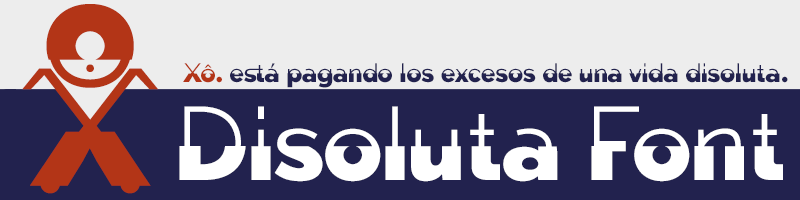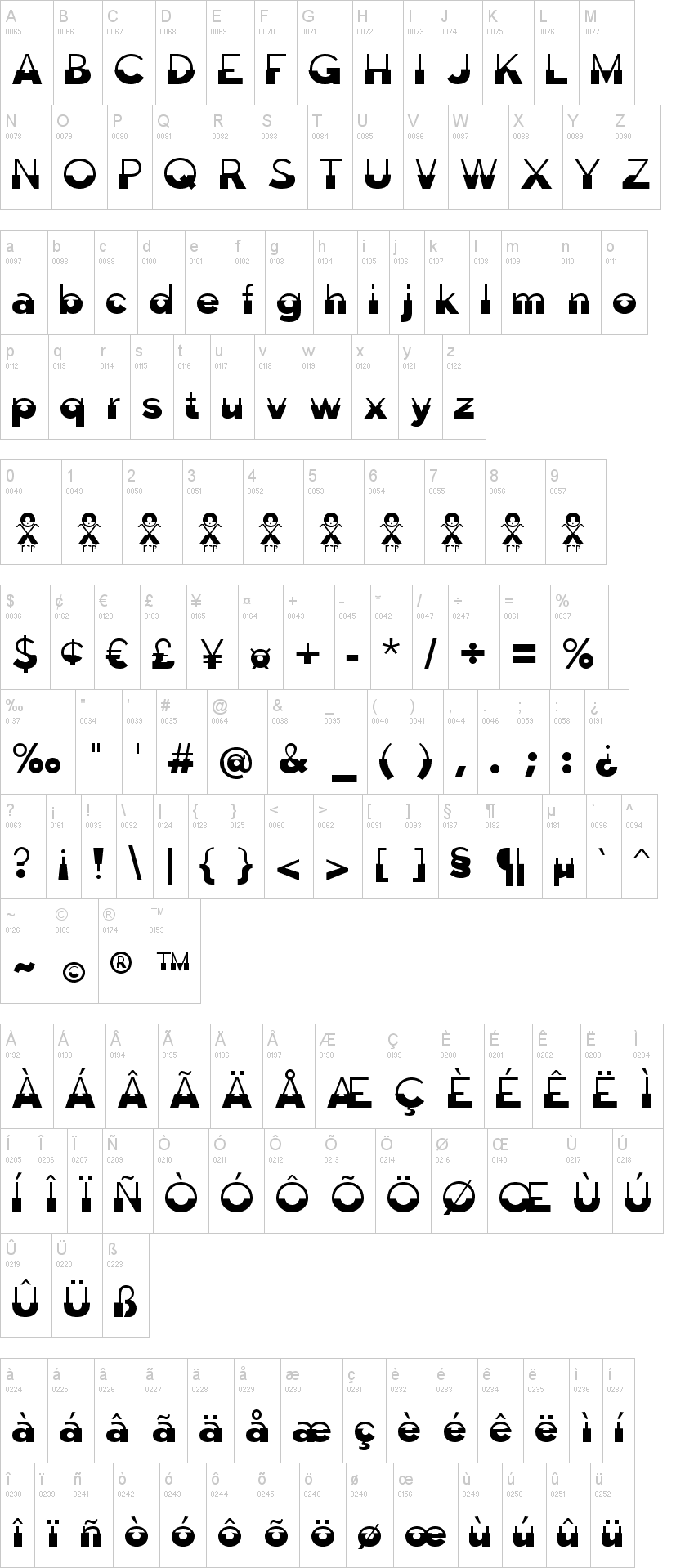
Note of the authorDissolute is a typographical experiment fusion of two sans fonts with different weights, for which I used my previous Typefaces:
Tabarra Black & Light.
Disoluta es un experimento tipográfico de fusión de dos fuentes sans con pesos diferentes, para lo cual he usado mis anteriores tipografías: Tabarra Light y Black.